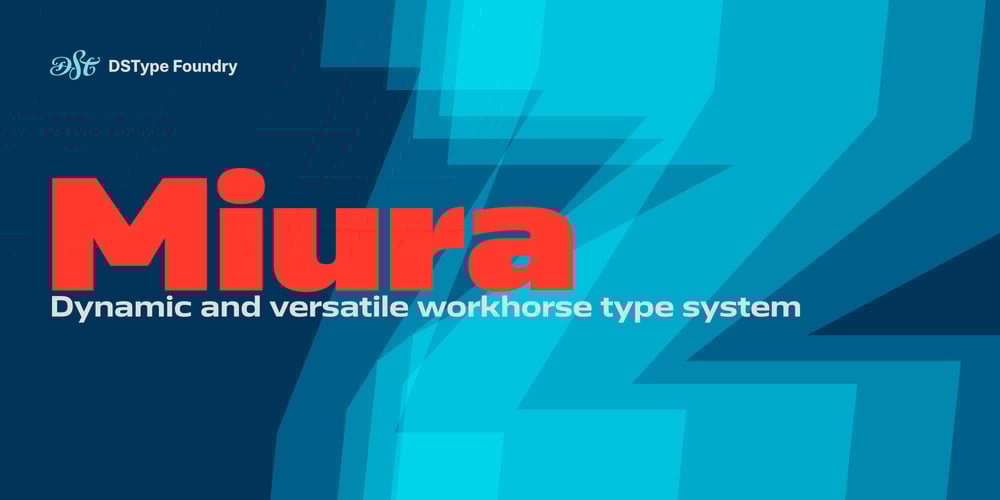
Miura
Miura font
Miura Font Family was designed by Dino dos Santos, Pedro Leal and published by DSType. Miura contains 100 styles and family package options. Miura introduces a dynamic typographic solution – a complete family meticulously crafted to fulfill all your design requirements. Miura offers unparalleled versatility and a commanding presence. Its sleek, squared yet rounded forms transcend traditional grotesque typefaces, exuding modernity and sophistication. Inspired by the timeless allure of Italian mid-century aesthetics, Miura features ten meticulously designed weights, ranging from Thin to Heavy, alongside five widths from Compact to Extended.